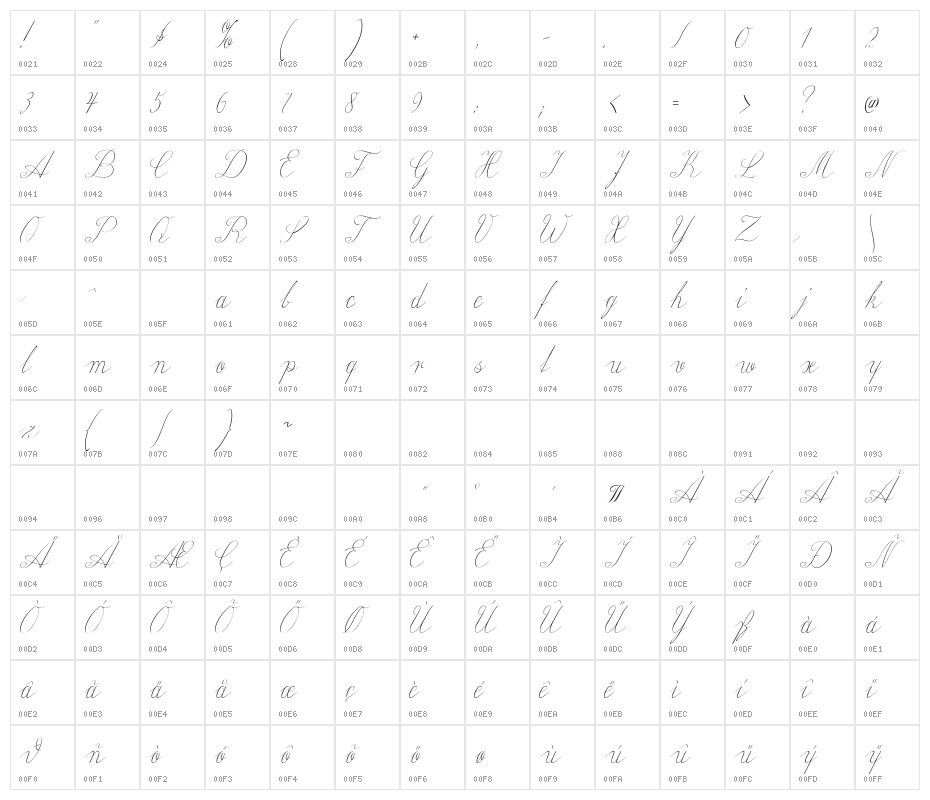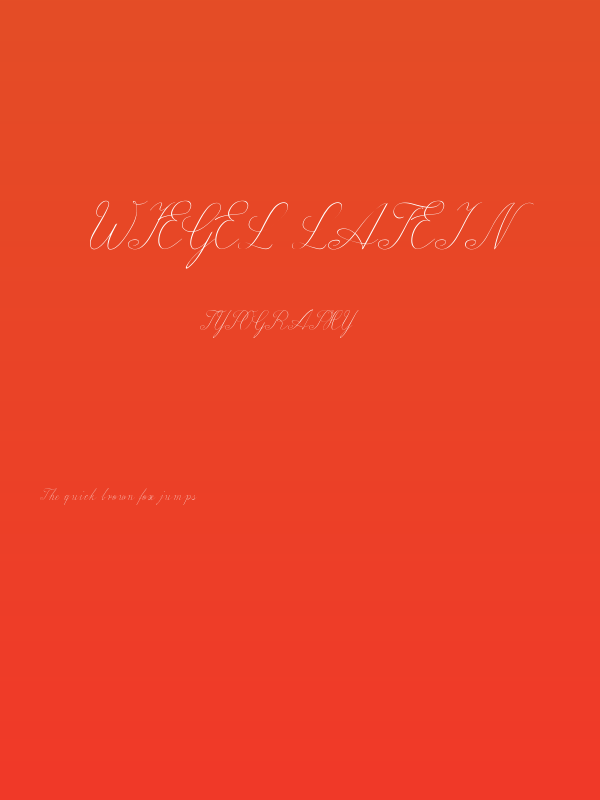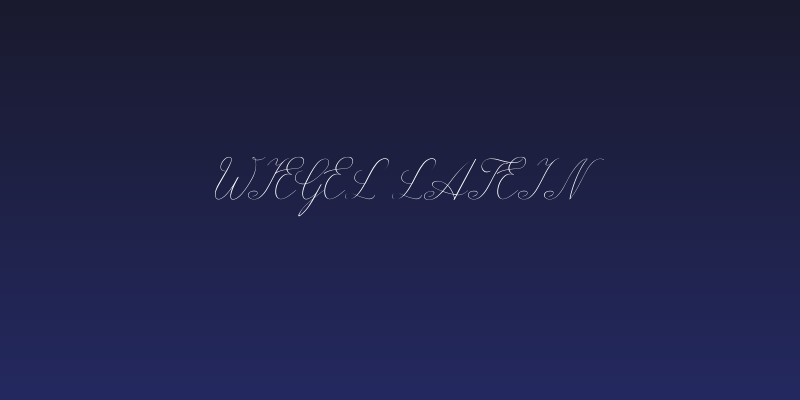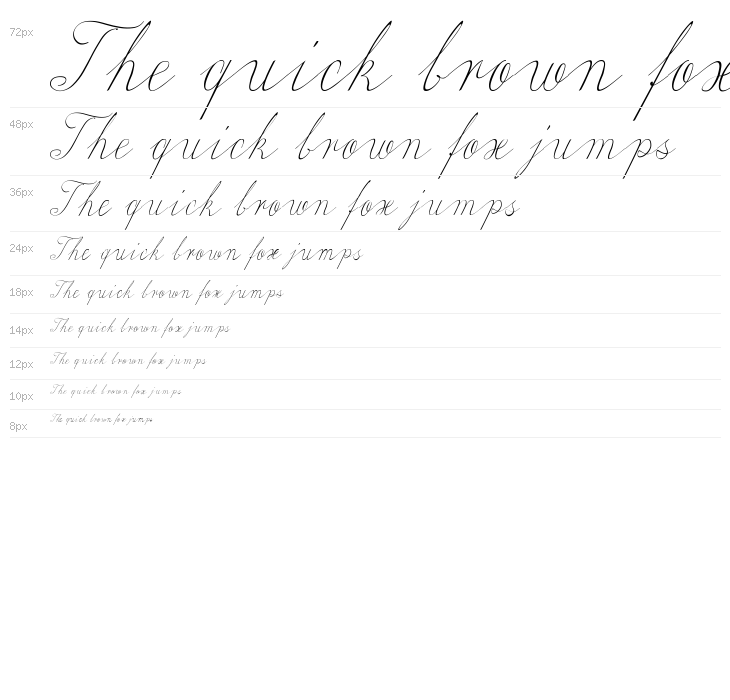
Wiegel Latein Font
Wiegel Latein Description
This elegant script font features flowing, interconnected letters with a classic and sophisticated appearance. The uppercase characters are ornate, with decorative loops and flourishes that add a touch of elegance. The lowercase letters maintain a consistent slant, enhancing the fluidity and grace of the script. The numbers are styled to match the letters, with a similar emphasis on curves and loops. Special characters are designed with the same attention to detail, ensuring a cohesive look across all elements. This font is ideal for projects that require a touch of refinement and elegance.
| Proposed Projects | Ideal for wedding invitations, elegant branding, formal event programs, and high-end product packaging. |